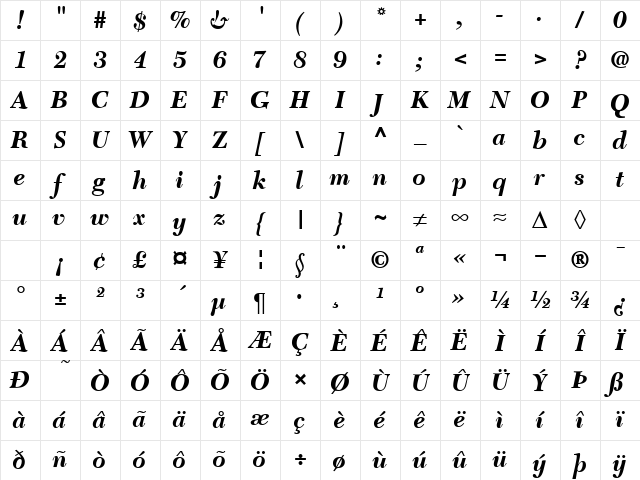
CalendarNova RegularItalic
Style: RegularItalic
Complete CalendarNova RegularItalic glyph index. Displaying only characters natively supported by CalendarNova RegularItalic font.
Design Context for CalendarNova
CalendarNova is a composed and adaptable typeface that performs quietly and consistently across a wide range of design contexts. The slanted form adds forward momentum and visual energy.
Pro Tip: Use CalendarNova for emphasis, pull quotes, and subheadings where its slanted energy can add rhythm to the layout.